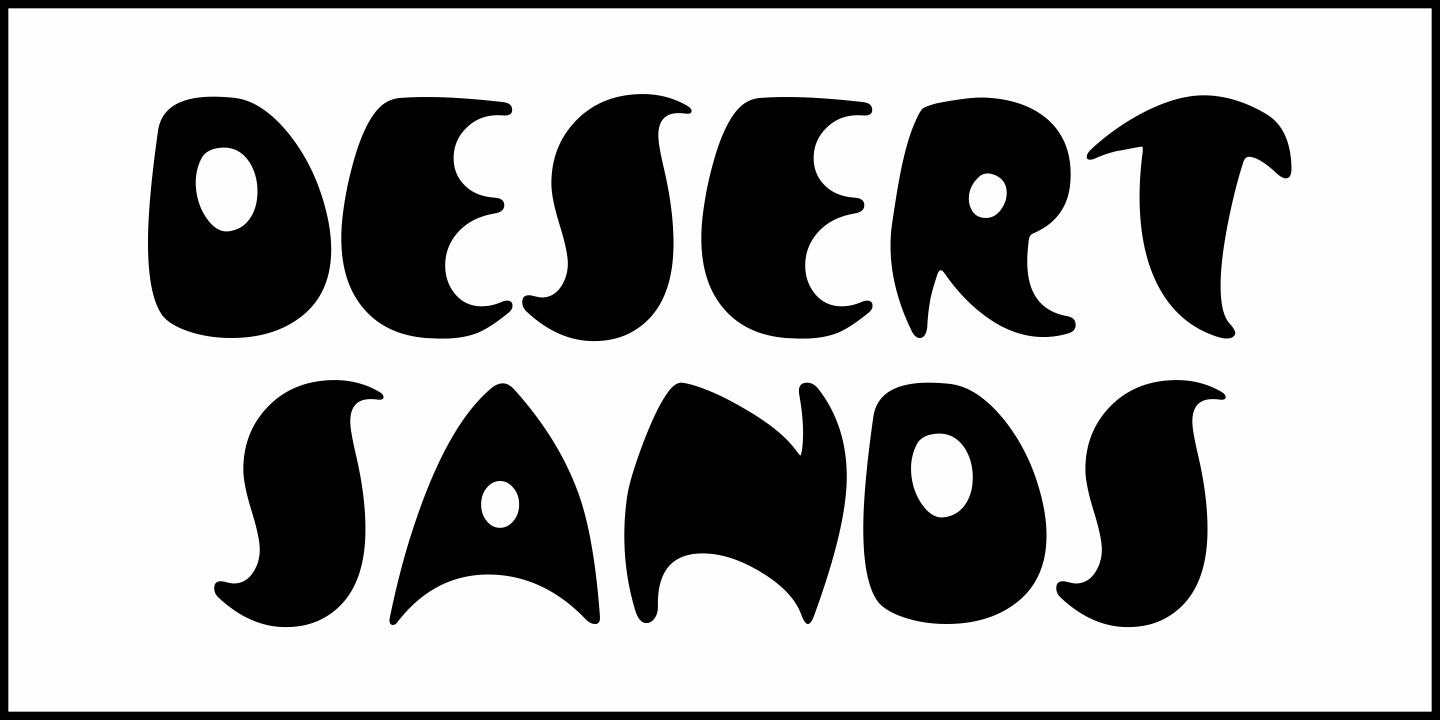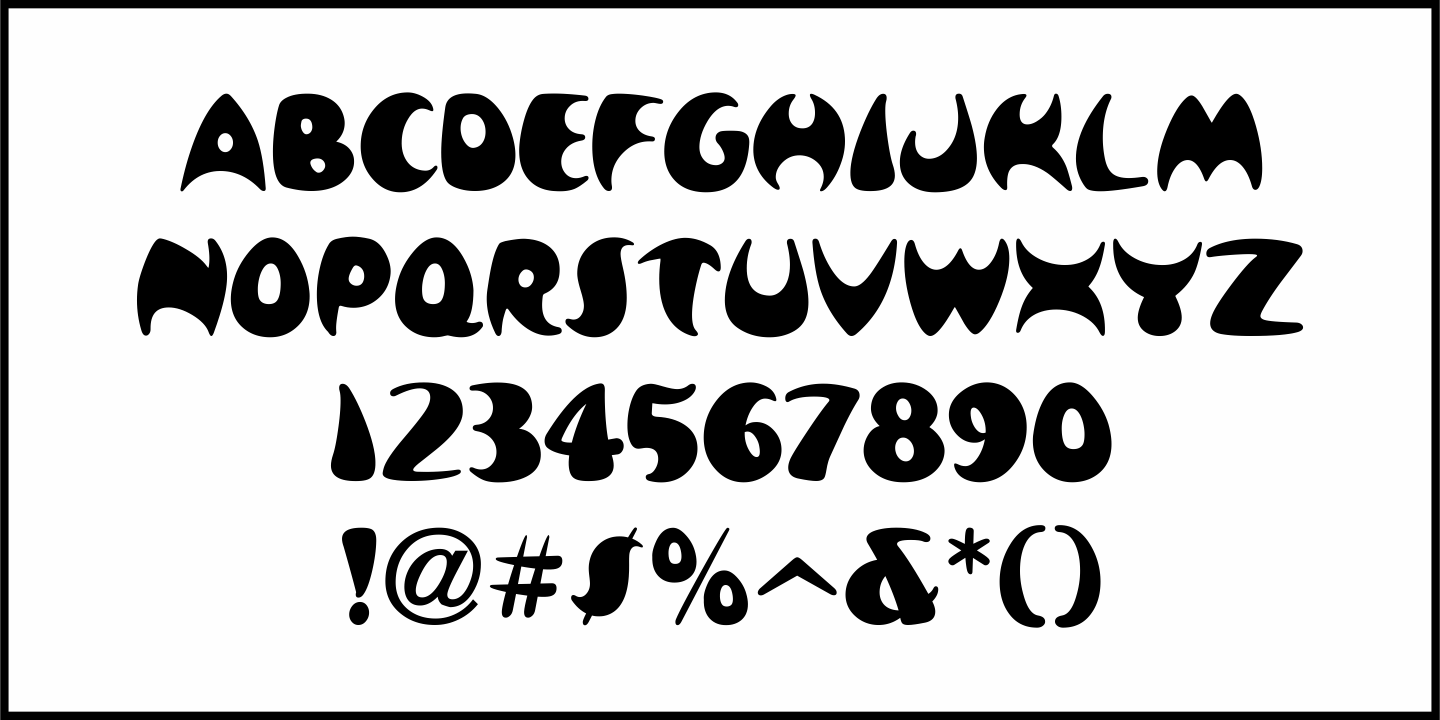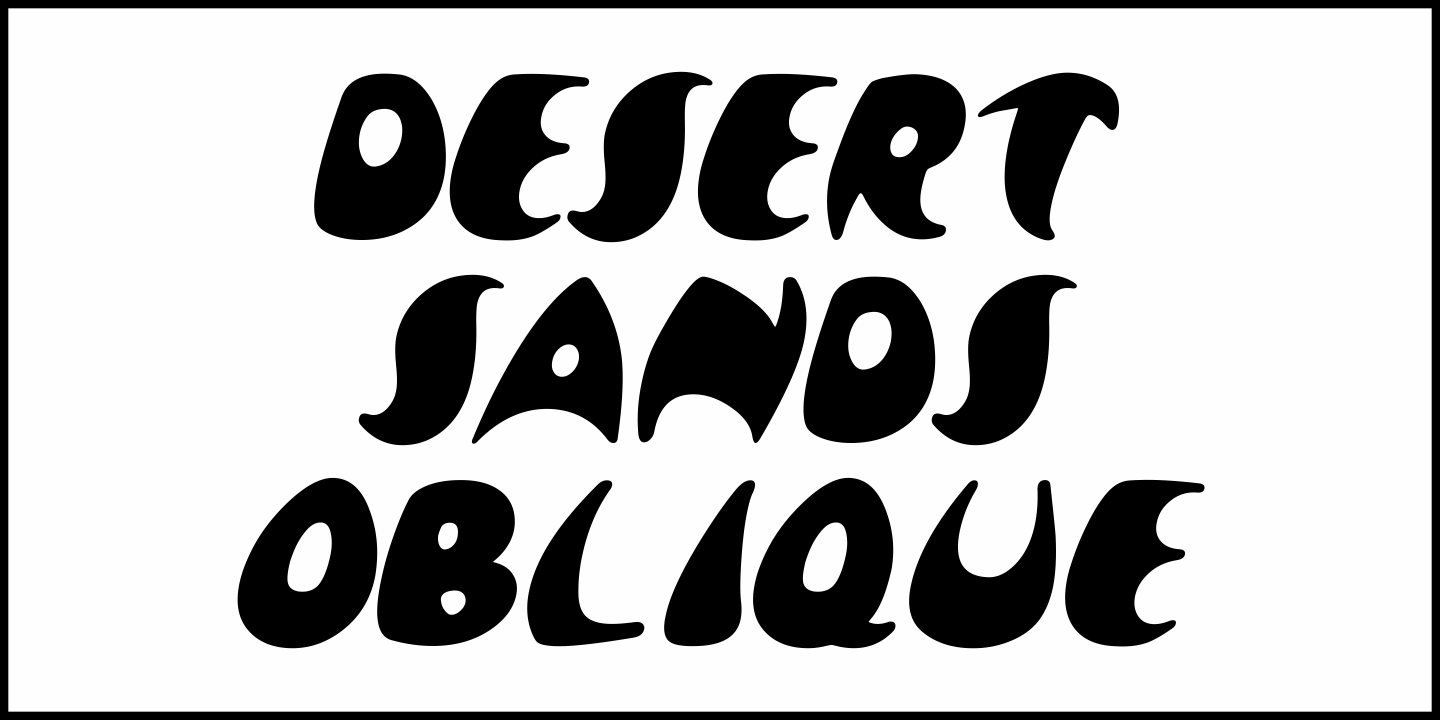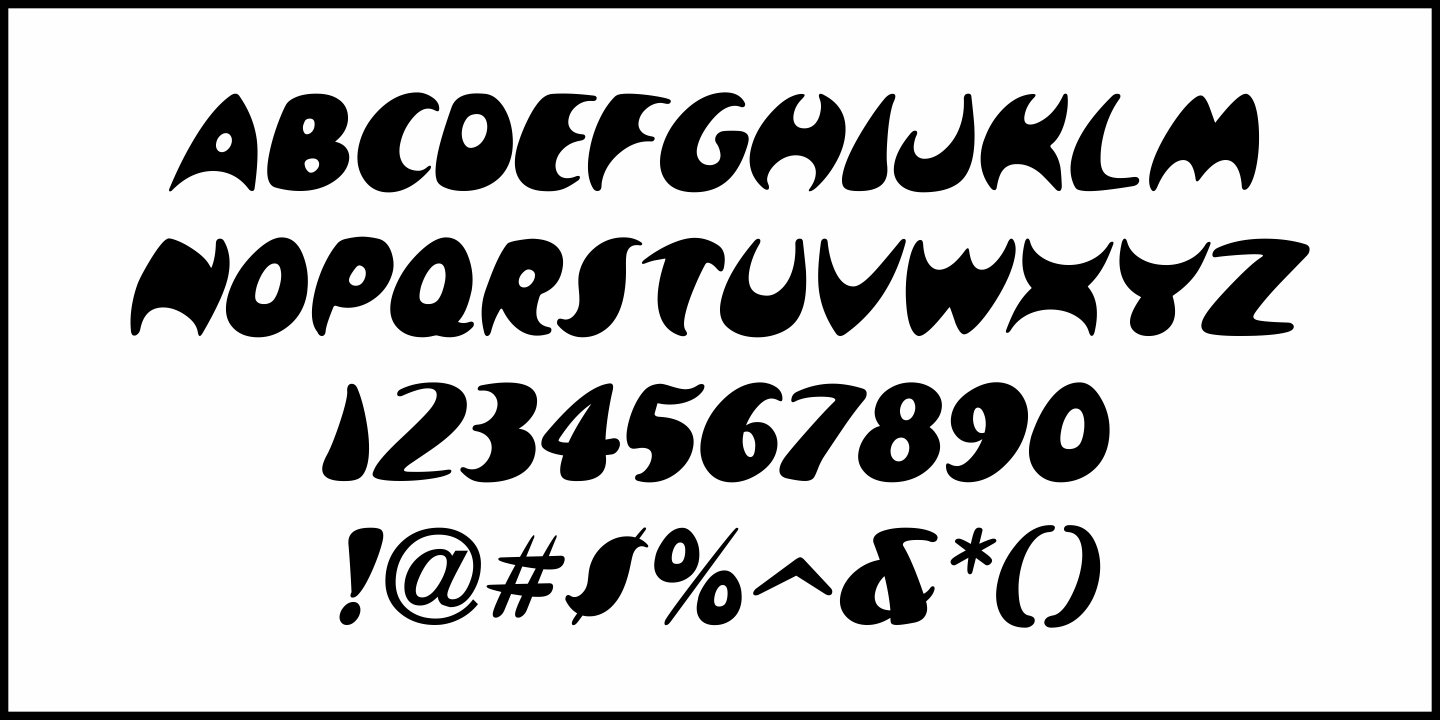
Desert Sands
The February 19, 1923 issue of The Film Daily contained an ad for Mack Sennett's new Ben Turpin comedy entitled 'The Shriek of Araby”. No doubt this was a spoof of the popular Rudolph Valentino film 'The Sheik”.
The ad tries to emulate Mideastern or Arablic typography via a standard Western alphabet. It somewhat captures the flavor, but its free-form hand lettering comes off as more of a novelty type style.
This is now available digitally as Desert Sands JNL in both regular and oblique versions.
Desert Sands JNL Regular by Jeff Levine Fonts